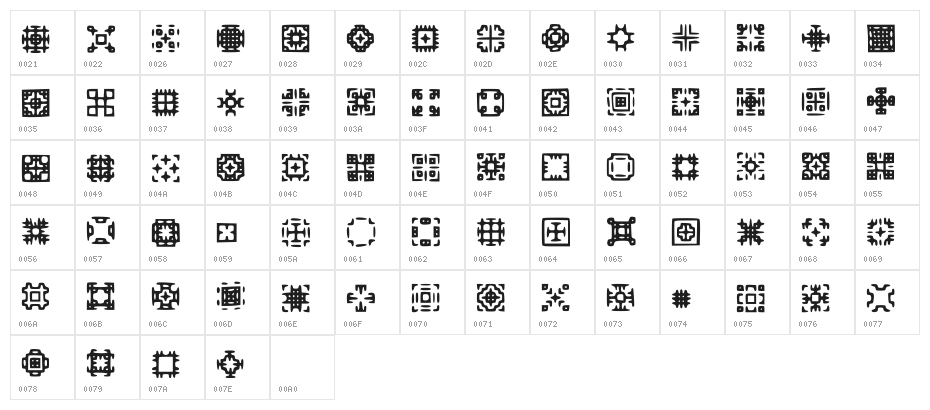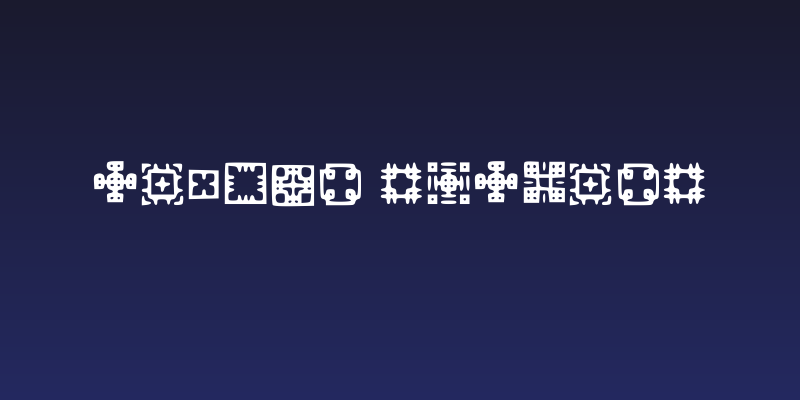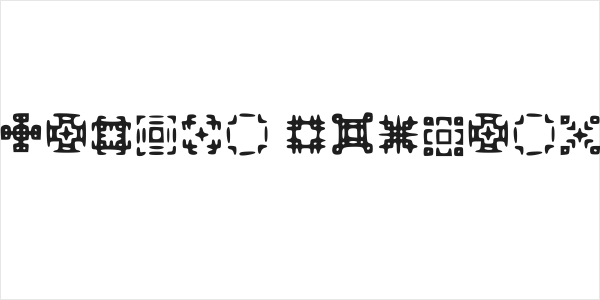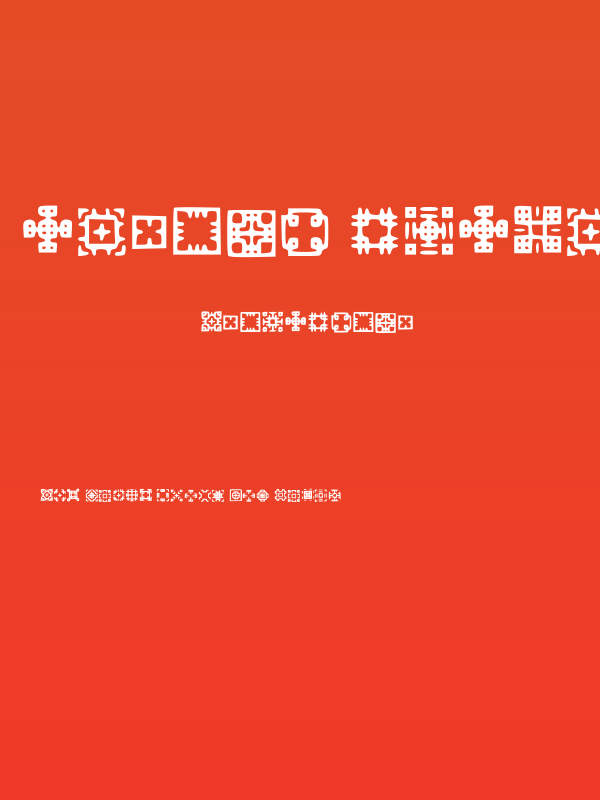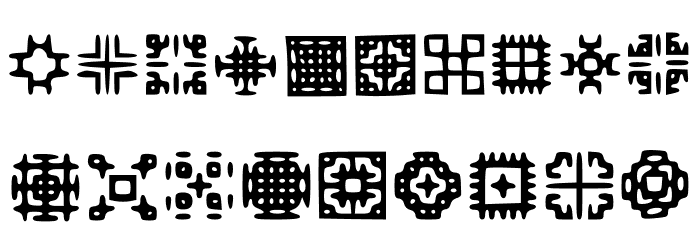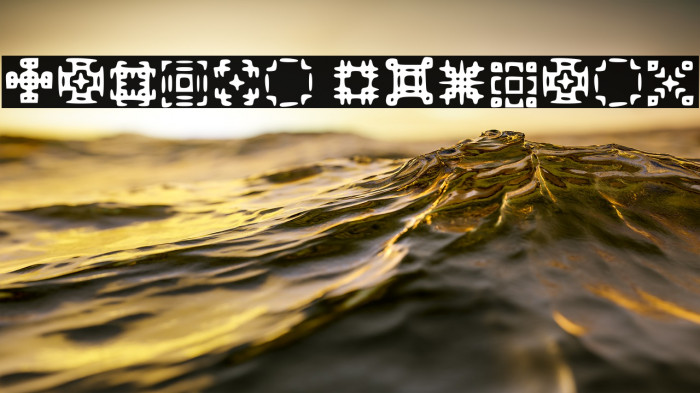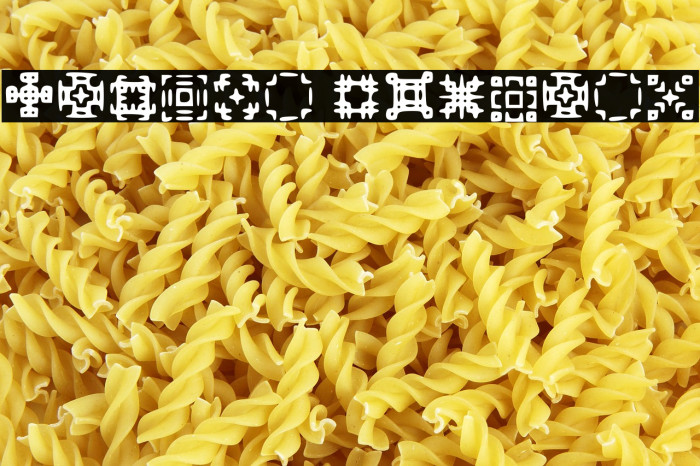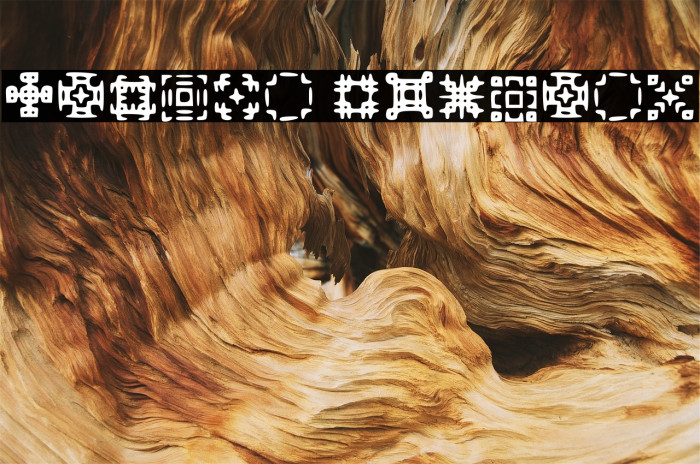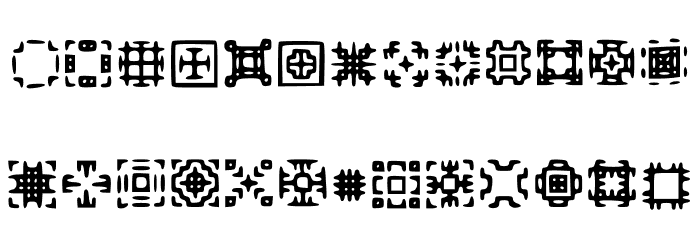
Glypha Regular Font
Glypha Regular Description
A decorative display typeface composed of intricate geometric and ornamental glyphs, each character forming a unique square or rectangular motif with bold, high-contrast strokes and detailed internal patterns.
| Overall Style | Decorative, Geometric, Modern |
| Use Case | Logos, Headlines, Decorative elements |
| Proposed Projects | Posters, branding, packaging, album covers, decorative initials, digital art, textile design. |